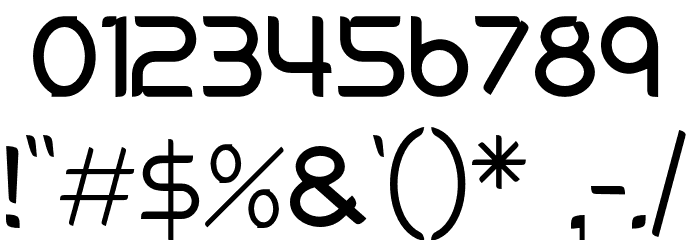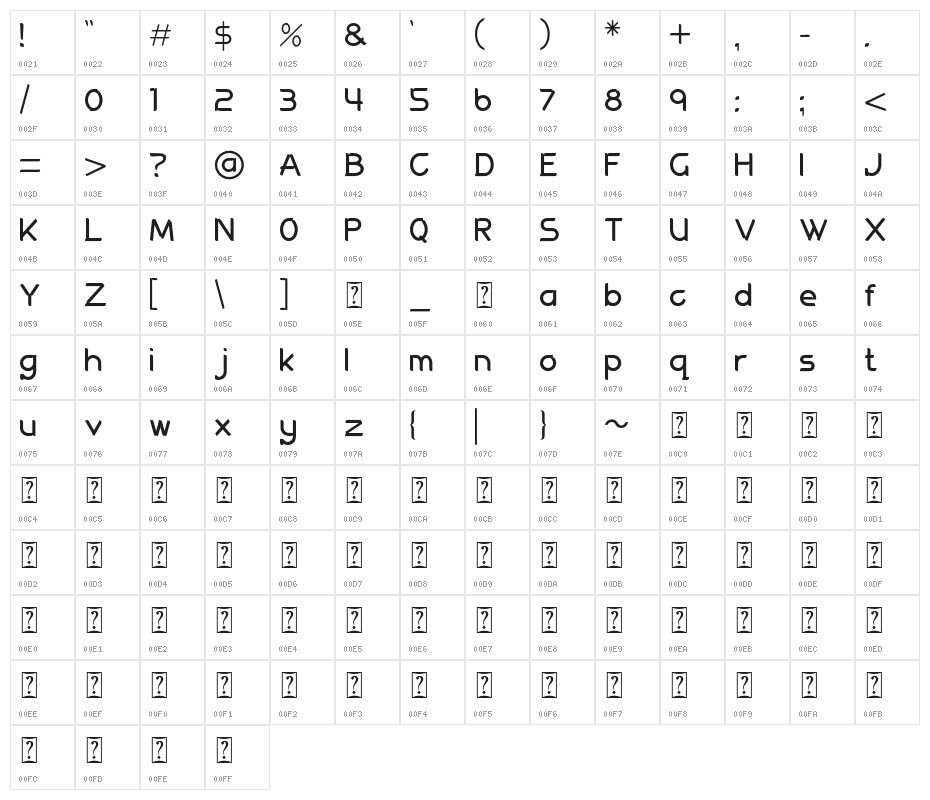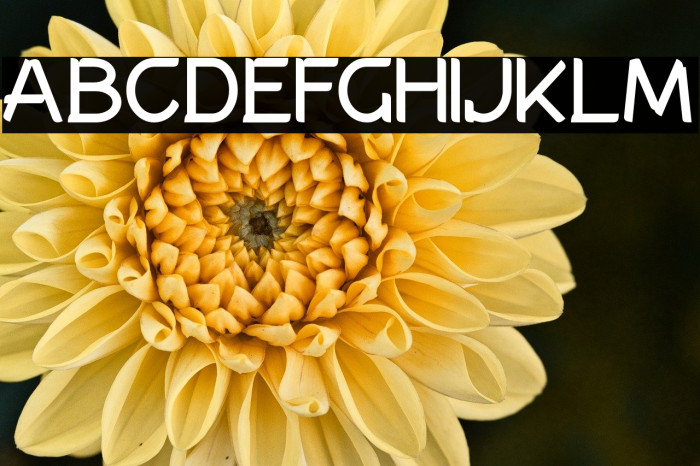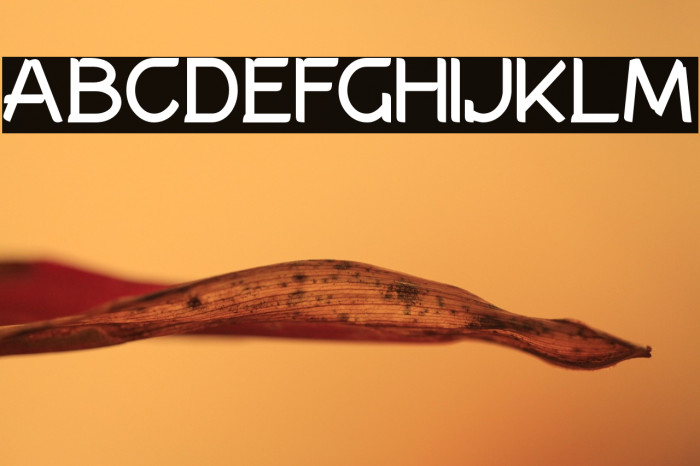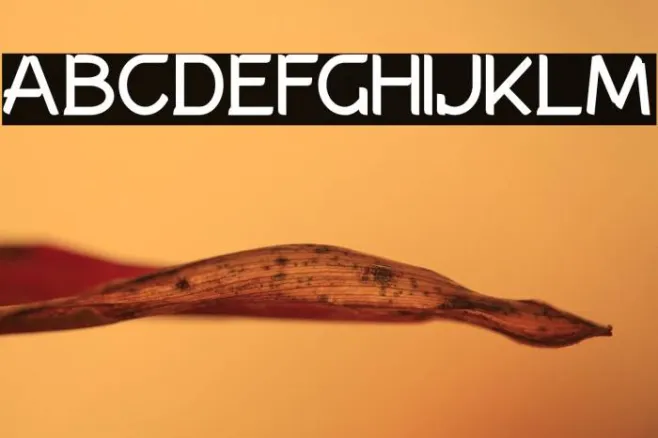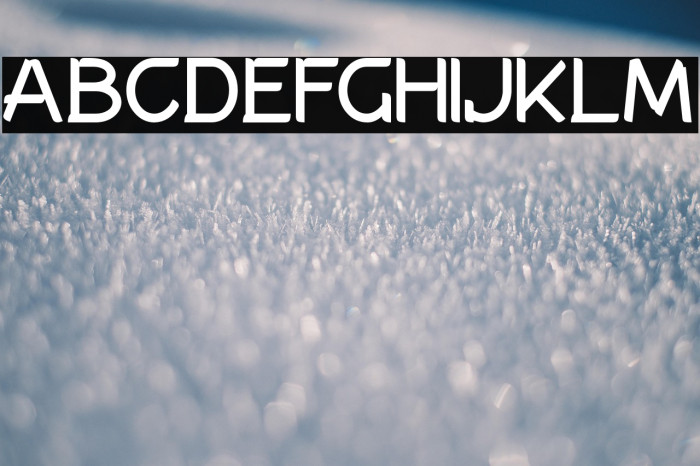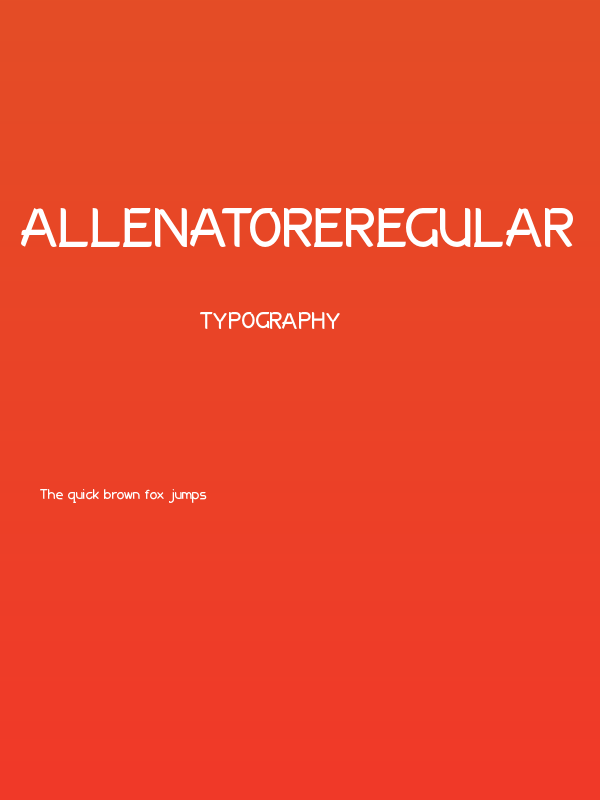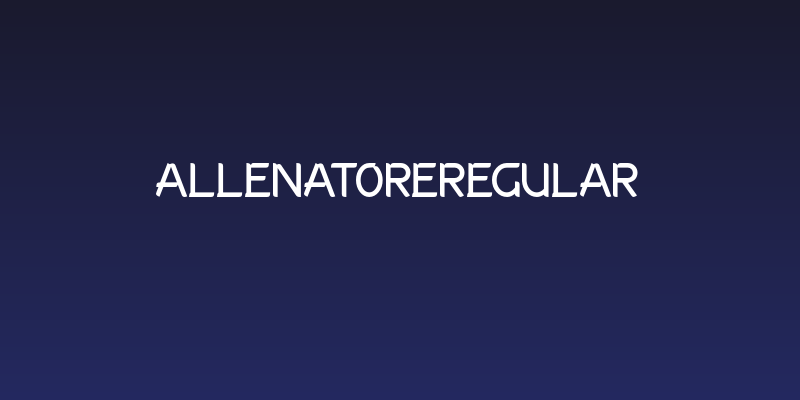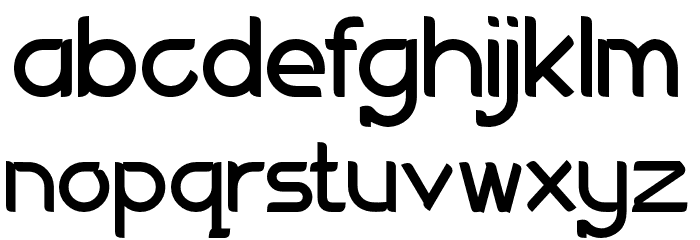
AllenatoreRegular Font
AllenatoreRegular Description
This font features a modern, geometric sans-serif style with clean lines and a uniform stroke width. The characters are well-balanced, with a slightly rounded appearance that adds a touch of friendliness to the overall design. The uppercase letters are bold and impactful, while the lowercase letters maintain a consistent flow, making the font versatile for various applications. The numerals are clear and easy to read, and the special characters are designed to complement the overall aesthetic. This font is suitable for both digital and print media, offering a contemporary look that is both professional and approachable.
| Proposed Projects | Ideal for branding, advertising, web design, and editorial layouts. |